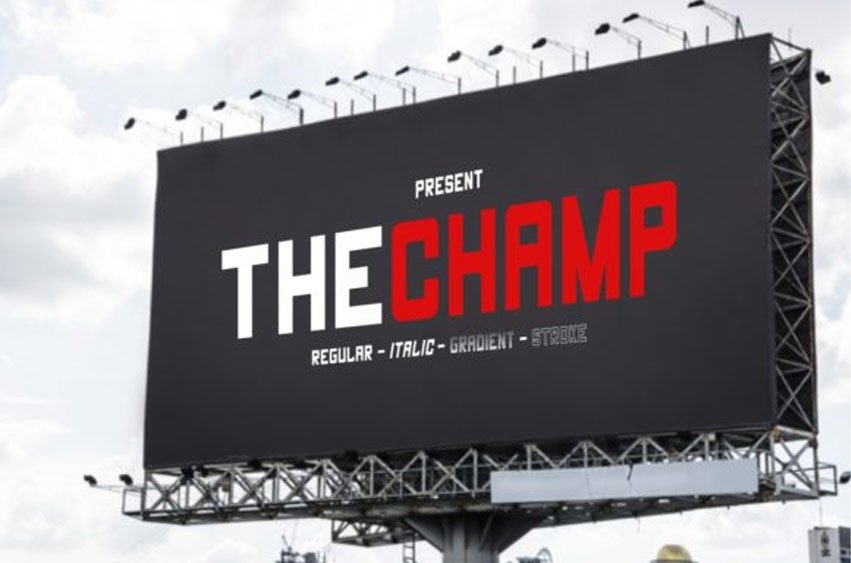
The Champ Font
The Champ Font is a beautiful and moder sans serif font with a sporty and dynamic feel.
It will turn any design project into a true stand out!